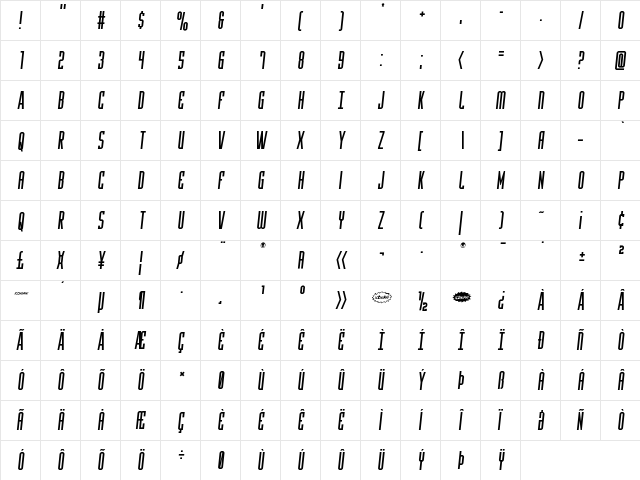
Y-Files Semi-Italic Semi-Italic
Design Context for Y-Files Semi-Italic Typeface
Y-Files Semi-Italic takes a measured approach to typography — its balanced proportions and neutral character make it a reliable workhorse for both digital and print work. The slanted form adds forward momentum and visual energy.
Pro Tip: Try Y-Files Semi-Italic for annotation and caption copy alongside an upright companion — the contrast in angle creates a dynamic but ordered typographic system.